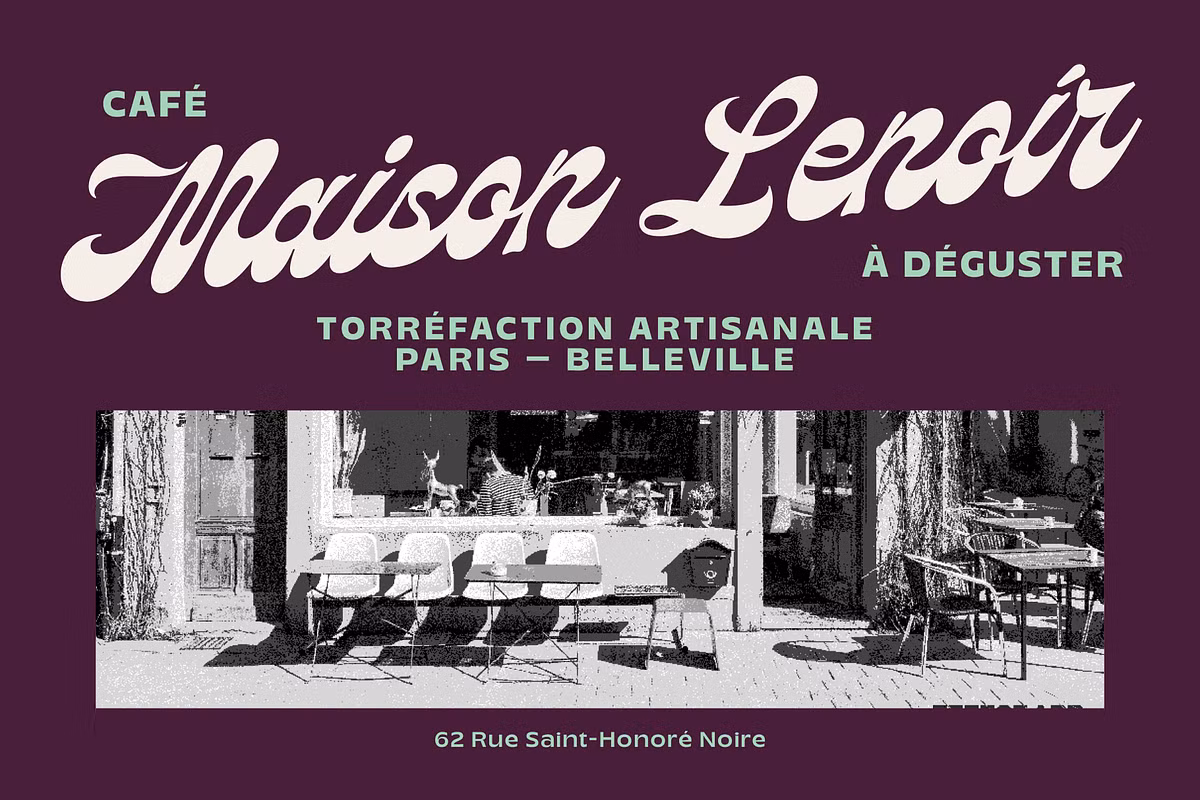
TNSC Olivian: Vintage Bold Script Font for Retro-Inspired Design
The TNSC Olivian font is really something special – it’s a bold, retro-style script that grabs your attention with its one-of-a-kind mix of old-school signage looks and modern design ideas. It takes a lot of inspiration from classic American lettering, which makes it perfect for all sorts of creative projects. If you’re a designer who loves retro-inspired designs, you’ll definitely want to get your hands on this font – it’s a total must-have. With its unique style, the TNSC Olivian font is great for adding a touch of nostalgia and personality to your work, whether you’re designing logos, posters, or anything in between.
The TNSC Olivian font has a really cool style that’s bold and fun to look at. It reminds you of old signs from cafes and diners back in the day. The curves are smooth and the lines are dynamic, which makes it feel warm and inviting. This font is not just pretty to look at, it’s also really useful for lots of different design projects because of its retro script style. You can use it to make your designs stand out and give them a classic feel. The font’s nostalgic vibe is perfect for creating a sense of comfort and familiarity, making it a great choice for designs that want to evoke a sense of nostalgia. Overall, the TNSC Olivian font is a great option for anyone looking to add a touch of vintage charm to their designs.
Key Features of TNSC Olivian
- Uppercase & Lowercase: The font includes both uppercase and lowercase letters, allowing for diverse typographic expressions.
- Numbers & Punctuation: Complete with a full set of numbers and punctuation marks, TNSC Olivian ensures that your designs remain professional and polished.
- This font is great because it can be used by people who speak many different languages, so it’s perfect for reaching people all around the world.
- Alternates & Swashes: The inclusion of alternate characters and swashes adds an extra layer of flair, enabling designers to customize their typography further.
Character Sets and Accessibility
Use Cases for TNSC Olivian
TNSC Olivian is really good at lots of things, so it can be used in many different ways. Here are a few ideas for how to use it:
- Branding: This font can significantly enhance your brand identity, especially for businesses in the food and beverage industry, such as coffee shops and restaurants. Its nostalgic feel can attract customers looking for a cozy atmosphere.
- TNSC Olivian is great for designing logos, especially for brands that want to give off a vintage vibe and seem really genuine.
- Packaging: The font’s boldness makes it an excellent choice for product packaging, helping items stand out on the shelves.
- TNSC Olivian can make posters and album covers that really stand out, perfect for music releases or events that need to grab people’s attention. They can create designs that are eye-catching and help make your music or event a success.
- Use this font to make a big impression with headlines and display typography that grabs your audience’s attention from the very beginning. It’s perfect for making a statement and drawing people in.
When designing with TNSC Olivian, pairing it with complementary fonts can enhance your overall design. Here are a few pairing suggestions:
- Sans-Serif Fonts: Pair TNSC Olivian with a clean sans-serif font like Montserrat or Lato for a balanced look. The modern lines of these sans-serifs will contrast nicely with the vintage script style.
- For a classic look, try pairing it with a serif font, like Playfair Display. This combination gives you a sophisticated and elegant feel. It’s a great way to add some timeless style to your design.
- Using a simple font like Roboto can make headings stand out, while keeping the rest of the text easy to read. This way, TNSC Olivian can be the focus in headings, and the body text will still be clear and simple.
TNSC Olivian is a classic font that adds a touch of nostalgia to your designs. It’s perfect for making a statement with its bold script style. You can use it for lots of different things, like creating brands that people will remember, packaging that stands out, and display typography that grabs attention. What’s great about TNSC Olivian is that it’s easy to use, whether you’re a pro at design or just starting out. It takes old-school inspiration and makes it work with modern design, so you can create something really special. Have fun playing around with this font and seeing what you can come up with!